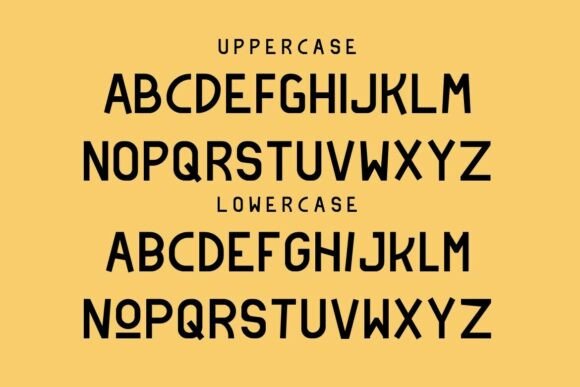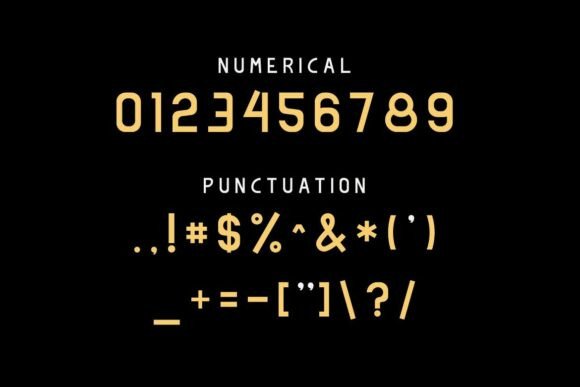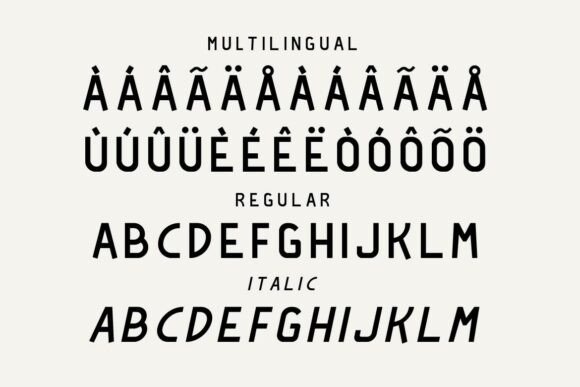
Discover the Unconventional Elegance of Forle Font
You’ve spent hours browsing through design inspiration boards, trying to find the perfect font to elevate your latest project. And then, it hits you – a spark of creativity that makes you want to jump out of your seat and start designing. For many of us, this moment is what drives us to create something truly remarkable. But, what if you had the perfect tool to bring your ideas to life? Enter Forle Font, a fresh and imaginative sans serif font that’s about to change the way you approach typography.
| 📌 Product Name | Forle Font |
| 👤 Author | Artiveko |
Designed to stand out with subtle character and clean geometry, Forle Font is perfect for branding, posters, editorial layouts, digital products, and packaging that needs a touch of creative flair. With its unique blend of modern minimalism and unexpected details, this font is a valuable addition to any designer’s toolkit.
Forle Font Key Features
- Font Family: Forle Font is a sans-serif font family designed for digital use. It includes multiple weights and styles.
- Font Size: The font family includes a range of font sizes from 8 to 72 points, making it suitable for various applications.
- Unique Characteristics: Forle Font features a clean and modern design with a subtle geometric feel, making it perfect for corporate and tech-related projects.
- Language Support: The font family supports multiple languages, including Latin, Cyrillic, and Greek scripts.
Forle Font Review
I recently had the chance to work with the Forle Font, and I must say, it’s an interesting addition to the world of typography. ✨ One thing that really stood out to me was its unique, elegant feel. The font’s refined lines and subtle curves give it a sophisticated, high-end look that would be perfect for luxury brands or fashion designers.
- ✨ Elegant and refined feel
- ✨ Suitable for luxury brands or fashion designers
- ✨ Good for headings and titles
However, I do have a few reservations about the font. ⚠️ One of the main limitations I noticed was its limited character set. While it’s perfect for headings and titles, it may not be the best choice for body text due to its limited availability of punctuation marks and special characters.
- ⚠️ Limited character set
- ⚠️ May not be suitable for body text
- ⚠️ Not ideal for languages that require a wide range of special characters
Overall, I think the Forle Font is a solid choice for designers looking for a unique and elegant font. While it may not be the most versatile option, it’s perfect for specific applications where its refined feel is a good fit.
Tips for Getting the Most Out of Forle Font
Forle Font is a versatile font that can be used for a variety of applications. Here are some tips for getting the most out of it:
- Use Forle Font for headings and titles to add a touch of elegance and sophistication.
- Pair Forle Font with other fonts to create a unique and eye-catching design.
Forle Font is commonly used for:
- Wedding invitations and station
Lato is a sans-serif font designed by Łukasz Dziedzic. It is a clean and modern font that is great for digital interfaces and body text. Lato is more elegant than Forle Font, making it a great alternative for designs that require a touch of sophistication. Additionally, Lato comes in a range of weights and styles, making it highly versatile.
Unique Design Ideas Using Forle Font
Create an enchanting wedding invitation set using the Forle Font. Its elegant and cursive script will transport your guests to a magical world.
How to use Forle Font:
- Use the font for the main invitation text, such as the couple’s names and wedding date.